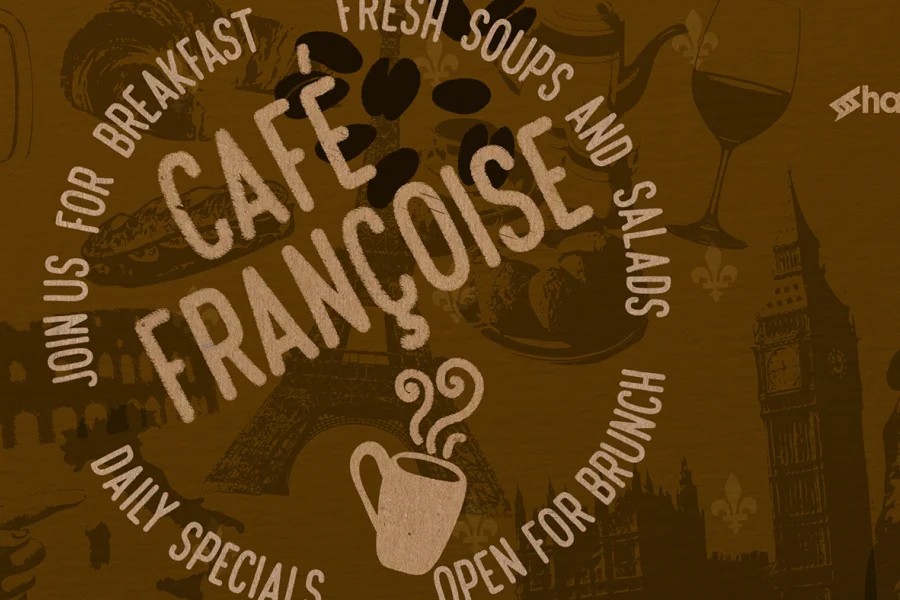
Bonjour font fans. Bienvenue au Café Françoise! (pronounced frahn-SWOSS). This simple, yet charming, display font was inspired by outdoor chalk board signage showcasing café’s specials of the day. These are common on the streets of places like London, Paris, Montreal, and Belgium. The letters are casual by design with an aroma as pleasant as a freshly prepared espresso. This family was updated to now include both a regular and distressed version. The latter more closely resembles a handwritten look with high detail. Use Café Françoise for a bakery logo, cafe menu, or poster. Basic Latin, extended Latin, diacritics, punctuation, kerning, and graphics are included in the full version. The demo contains basic Latin and limited punctuation only. Please check the glyph map for all supported characters and images.